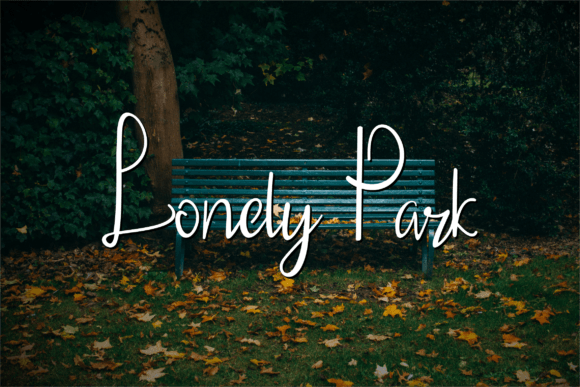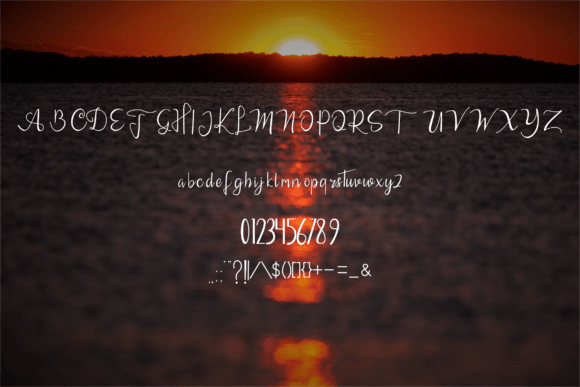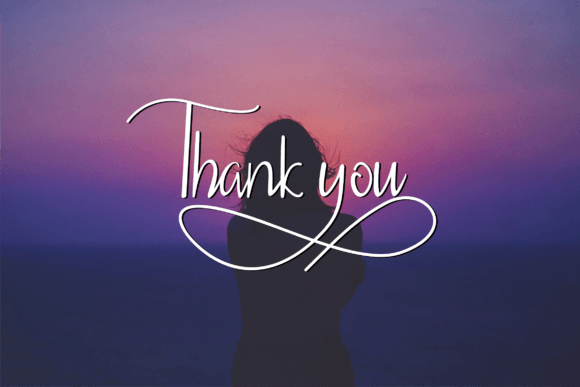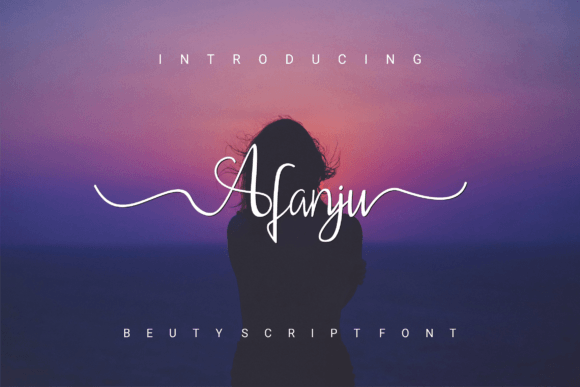
The Enchanting Afanju Font: A Designer’s Dream Come True
This enchanting script font has a wide spectrum of applications, ranging from greeting cards to headlines, and is guaranteed to add a romantic feel to your next project. In this article, I’ll share my honest review of the Afanju font, provide a practical guide on how to use it, and explore similar fonts and alternatives.
The Good: What I Love About Afanju Font
- ✨ Elegant and flowing script with a romantic feel
- ✅ Highly versatile and adaptable to various design projects
- 💫 Beautifully crafted with attention to detail
- 🎉 Extensive character set with OpenType features
The Not-So-Good: Small Quirks and Limitations
- 🤔 May not be suitable for very small font sizes or body text
- ⚠️ Limited availability of certain characters or glyphs
- Experiment with OpenType features, such as stylistic alternates and glyphs, to add more flair to your text.
The Story Behind Afanju Font
The Afanju font was designed with the intention of creating a beautiful, elegant script that captures the essence of romance and whimsy. The designer aimed to craft a font that’s both versatile and eye-catching, making it perfect for a wide range of design projects.
Q: What is the Afanju font best suited for?
A: The Afanju font is best suited for creative projects that require a romantic and whimsical feel, such as wedding invitations, greeting cards, and headlines.
A: The Afanju font may have limited language support, but it can be used with various languages that use the Latin alphabet.